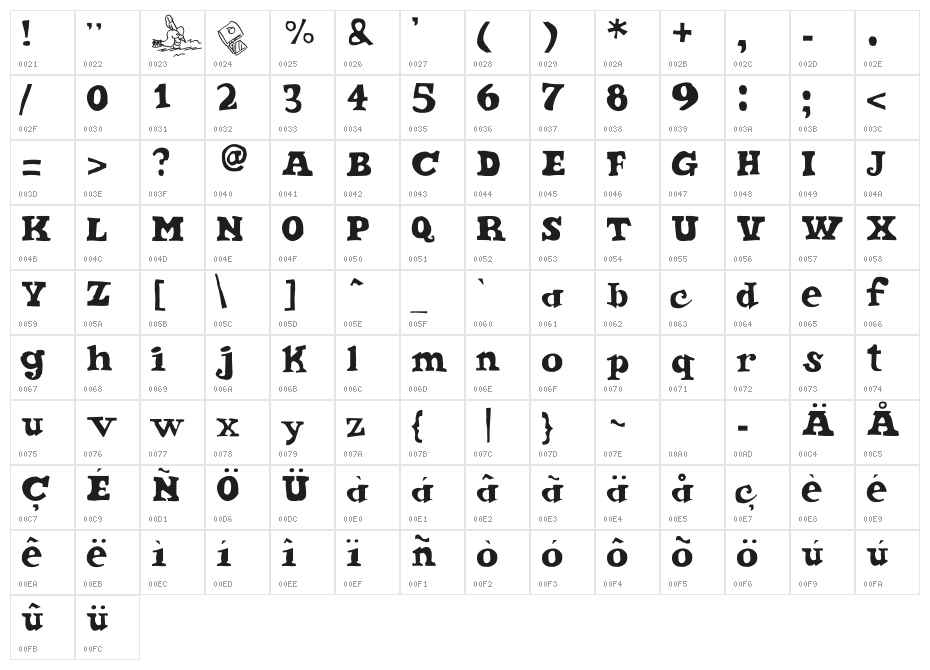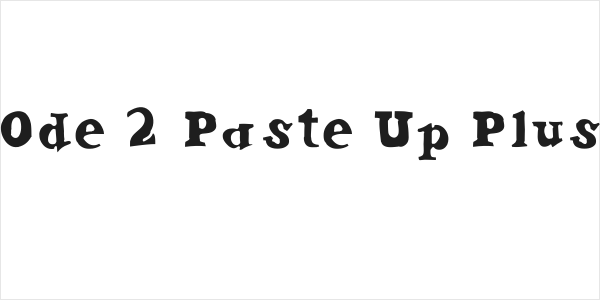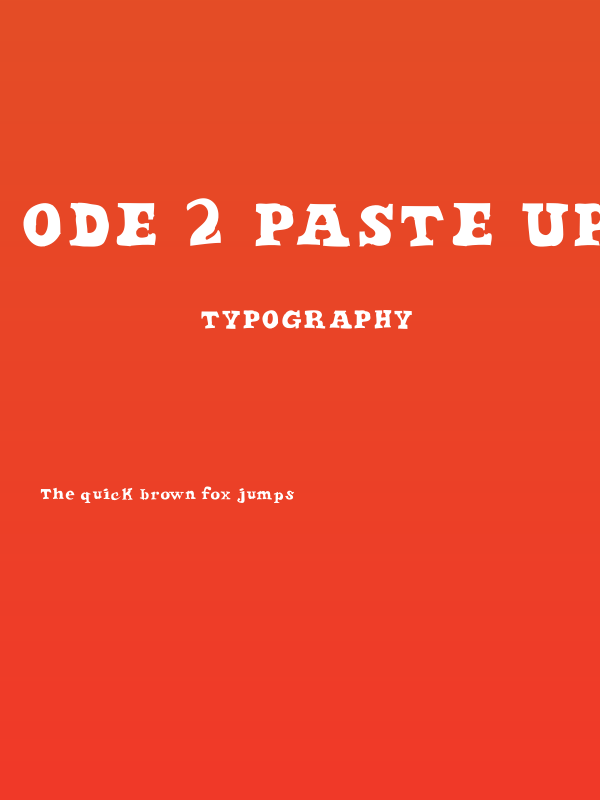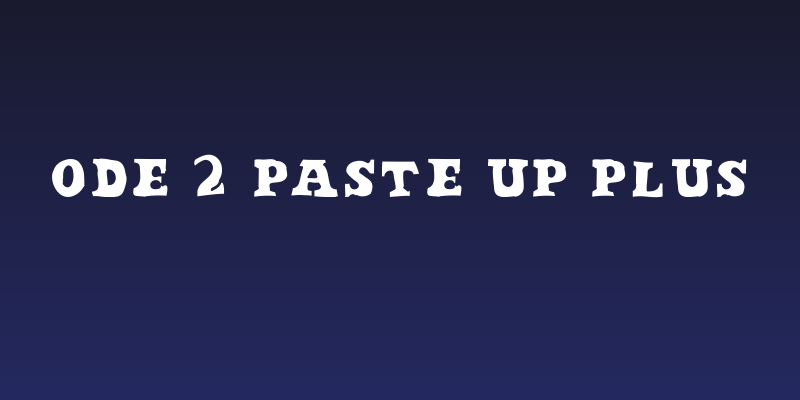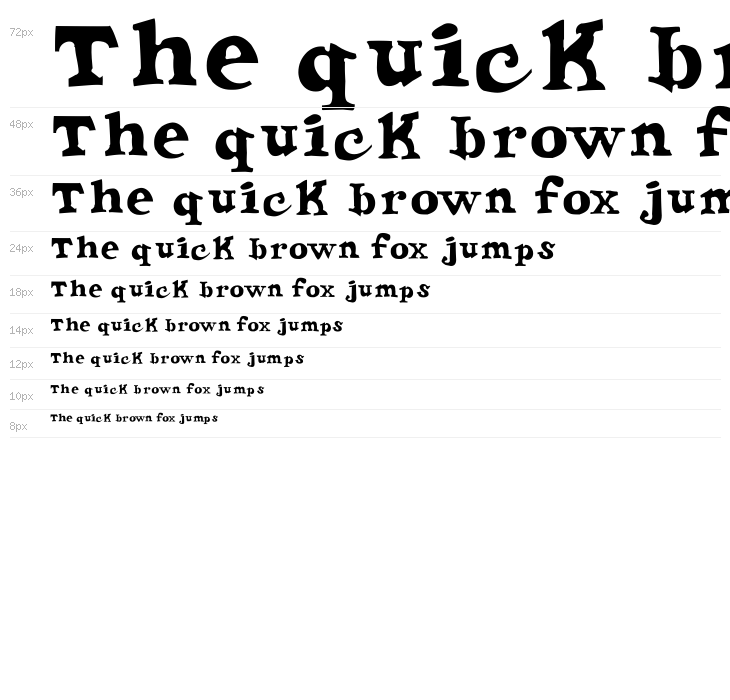
Ode 2 Paste Up Plus Font
Ode 2 Paste Up Plus Description
This font features a playful and whimsical design with uneven, quirky letterforms that give it a hand-crafted appearance. The characters are bold and have a slightly irregular baseline, adding to the casual and artistic feel. The strokes are thick and rounded, contributing to a friendly and approachable look. The font includes both uppercase and lowercase letters, numerals, and a variety of special characters, each maintaining the same playful style. The overall design is reminiscent of cut-out letters, making it ideal for creative and informal projects.
| Overall Style | Whimsical, Playful |
| Use Case | Headlines, Posters, Branding |
| Proposed Projects | Ideal for children's books, playful posters, creative branding, and informal invitations. |